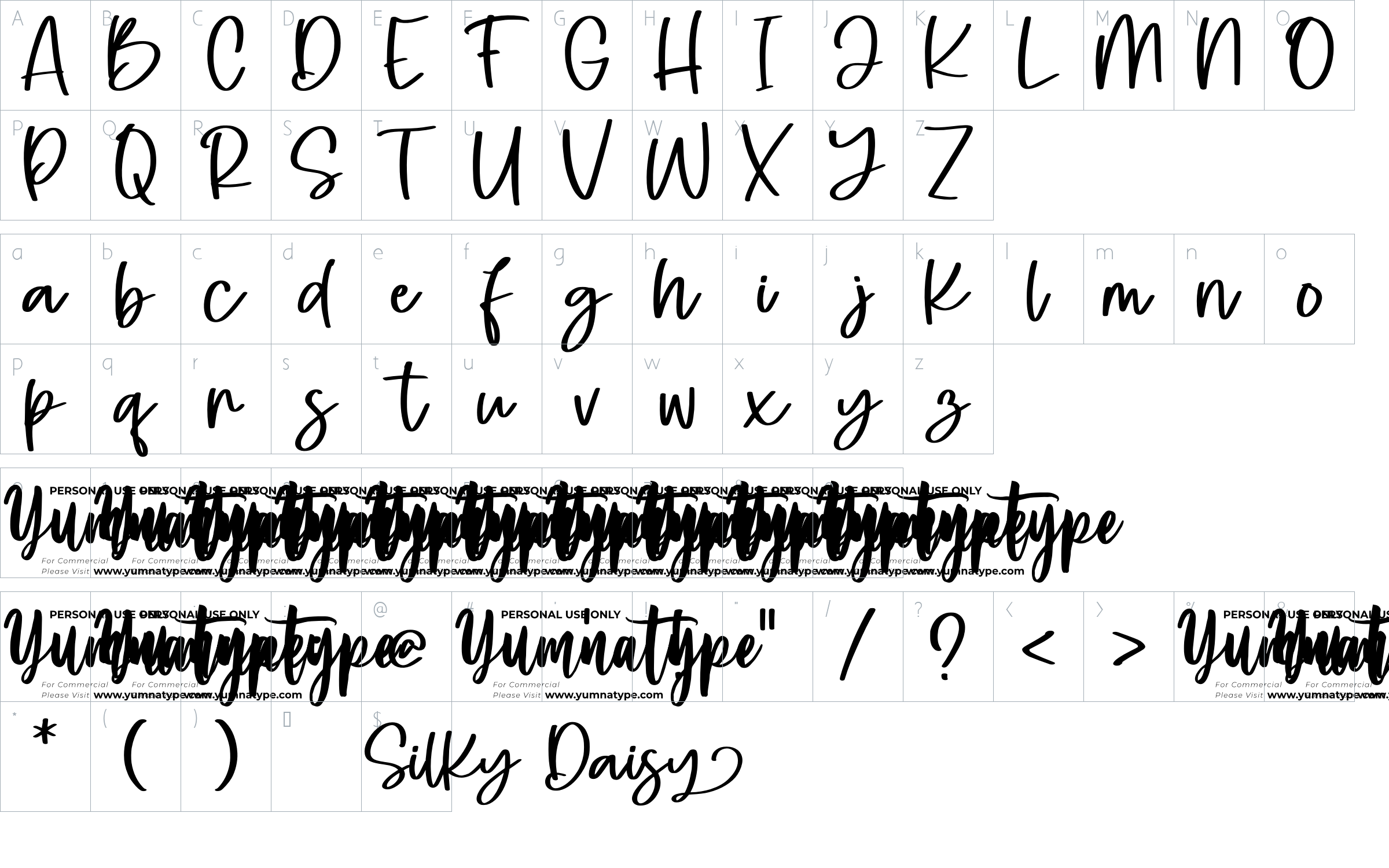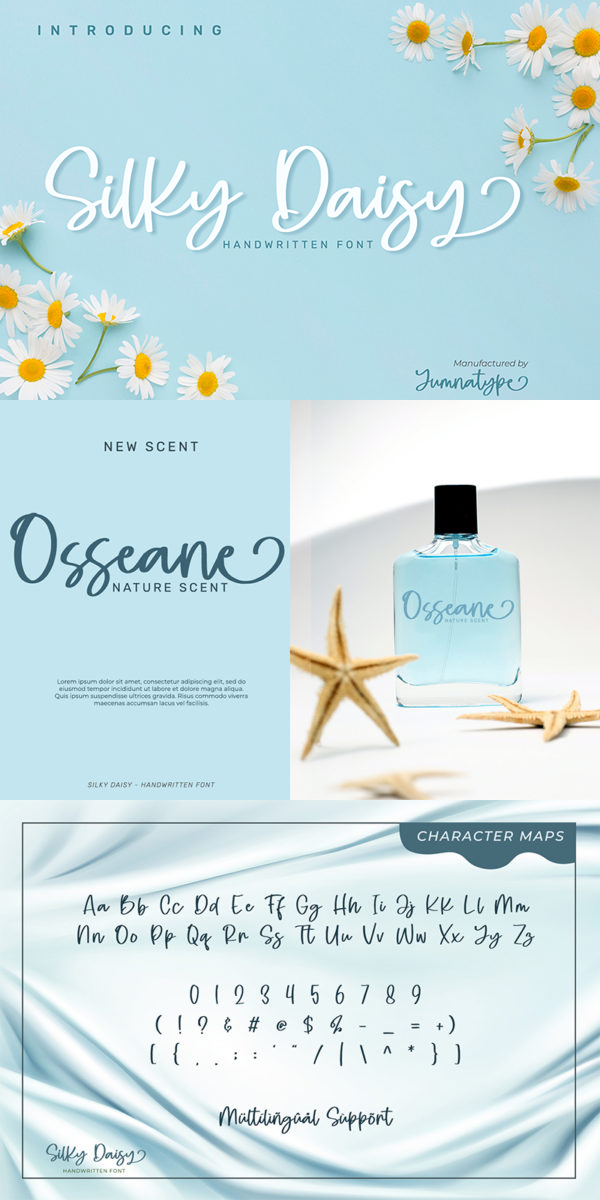
Silky Daisy Font
About Silky Daisy
Silky Daisy is a elegant handwritten font. Made for any professional project branding. It is the best for logos, branding and quotes. Every letter has a unique and beautiful touch.